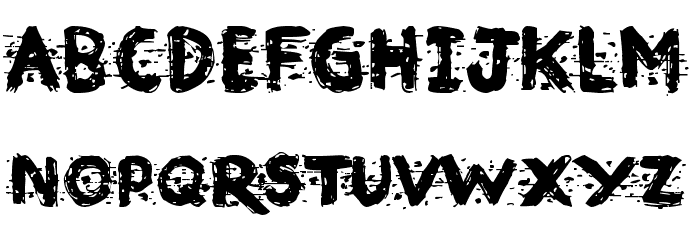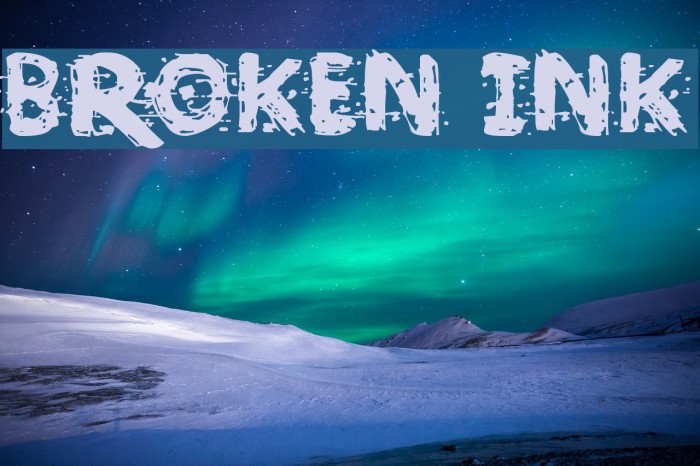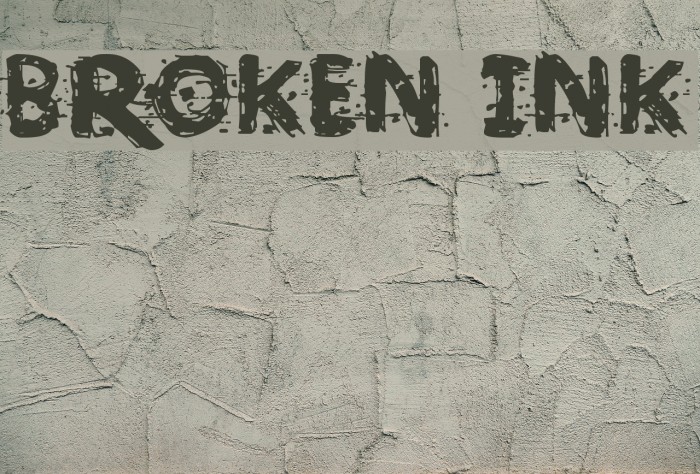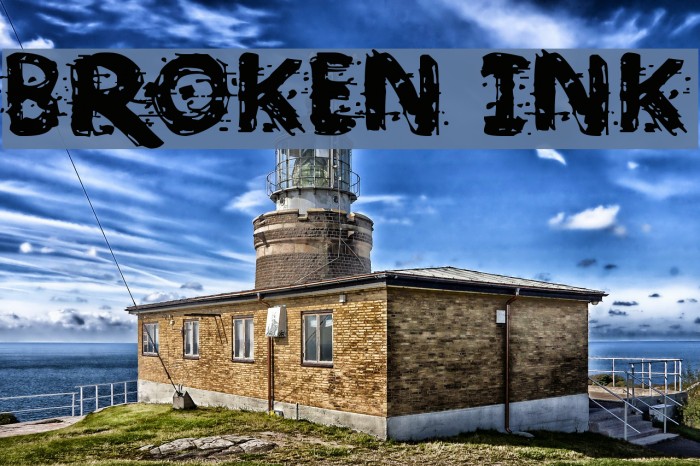
Broken Ink Font
This font features a bold, distressed style with a grunge aesthetic. The characters appear as if they have been painted with a brush, showing irregular edges and splatters that give a raw, edgy feel. The uppercase and lowercase letters maintain a consistent thickness, contributing to a cohesive look despite the chaotic texture. The font's rugged appearance makes it ideal for designs that require a strong, impactful presence. It is particularly suited for projects that aim to convey a sense of rebellion or nonconformity. The numbers and special characters follow the same distressed pattern, ensuring uniformity across all text elements.
A bold, distressed font with a grunge aesthetic and irregular edges.
- Proposed Projects: Ideal for album covers, streetwear branding, event posters, and rebellious-themed designs.
- Overall Style: Grunge, Edgy